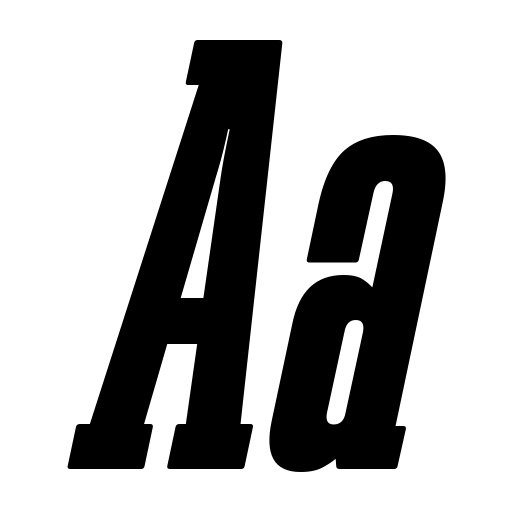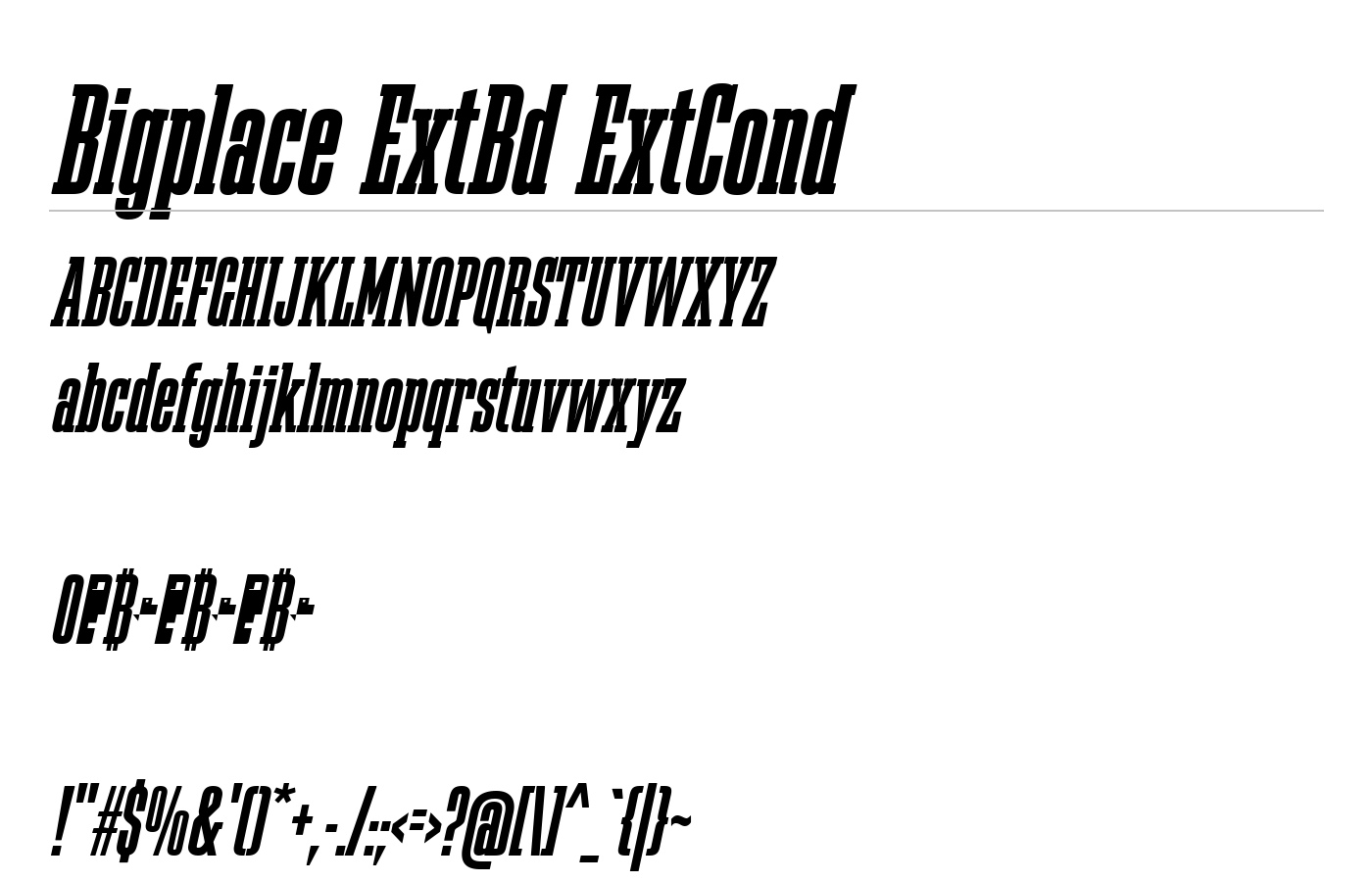
Bigplace ExtBd ExtCond is a bold, condensed serif font with a strong vintage vibe, featuring high contrast between thick and thin strokes and sharply angled serifs that create a dynamic, assertive look. Its tall x-height and narrow letterforms make it ideal for impactful headlines and branding where space is limited but style is key. This font works well for fashion, editorial, and advertising uses that need a confident, classic yet energetic presence.
Bigplace Font
About Bigplace Font
| Font family | Bigplace Font |
| Designer | Fernando Haro |
| Font subfamily | ExtraBold, Italic, Condensed |